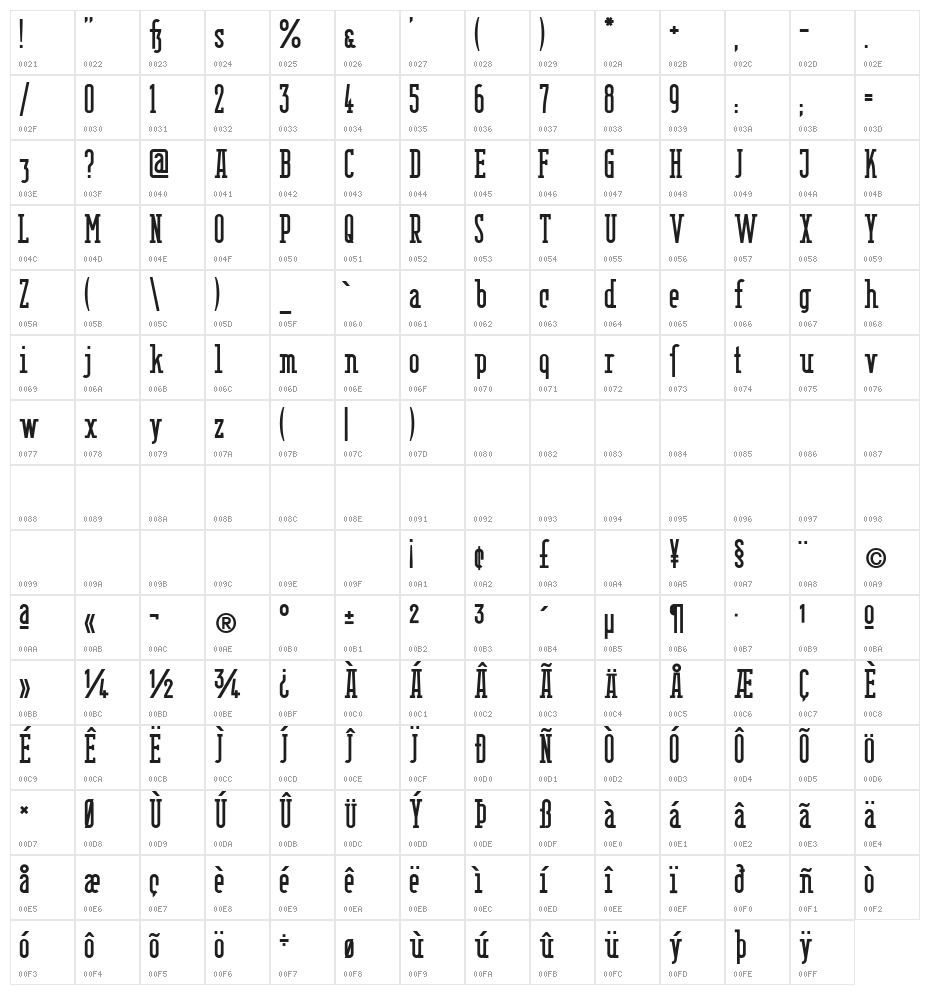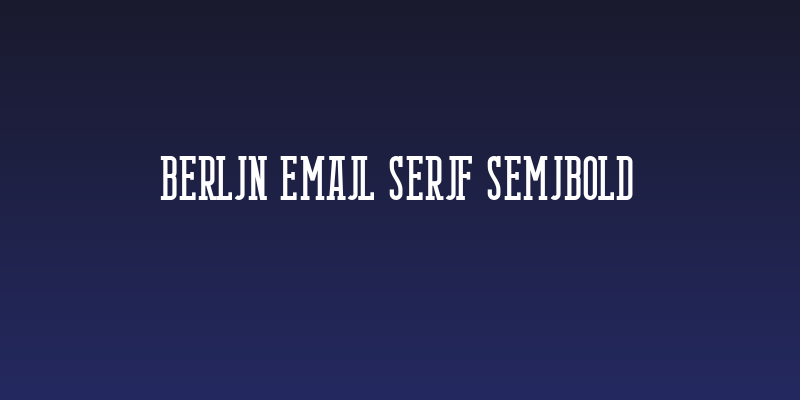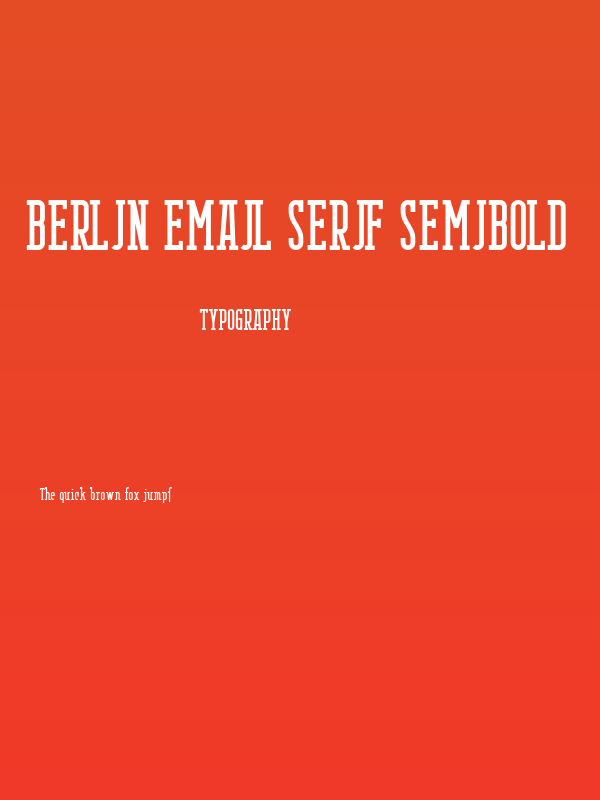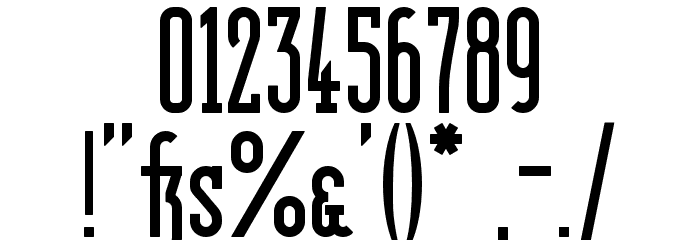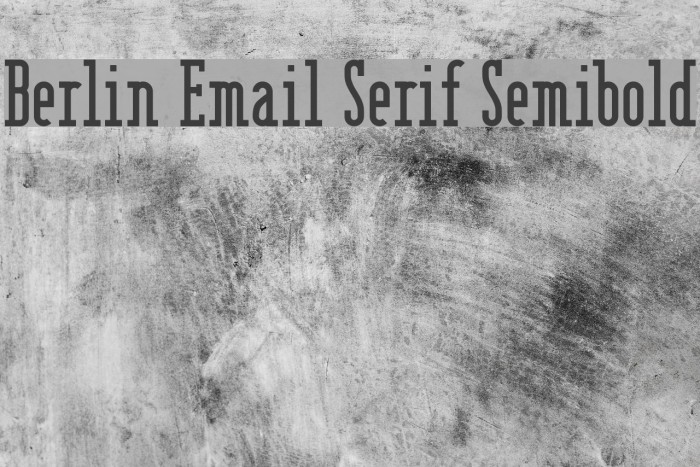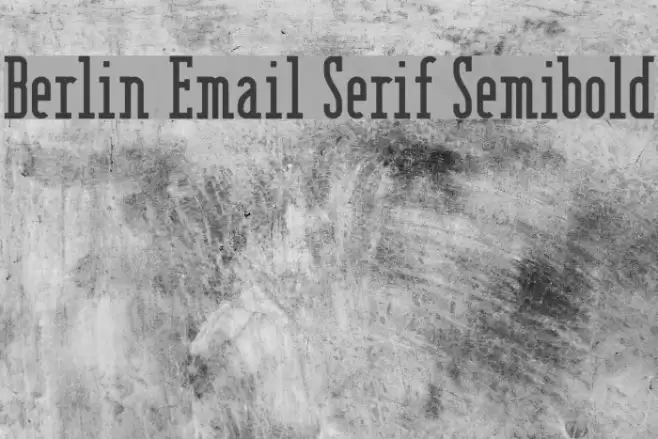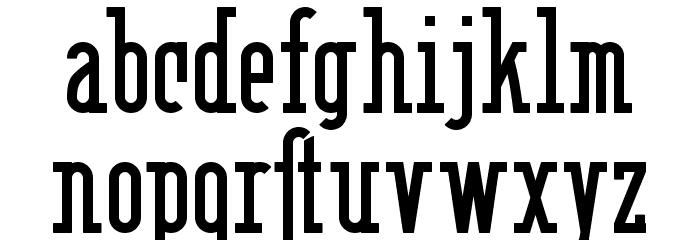
Berlin Email Serif Semibold Font
Berlin Email Serif Semibold Description
This font features a bold and striking serif style with a strong presence. The uppercase letters are tall and commanding, with pronounced serifs that give them a classic yet modern feel. The lowercase letters maintain a consistent style, offering a harmonious balance with the uppercase. Numbers are clear and distinct, making them easily readable. Special characters are well-integrated, maintaining the overall aesthetic. The font's semi-bold weight adds to its versatility, making it suitable for various design applications.
| Overall Style | Classic |
| Proposed Projects | Ideal for headlines, posters, branding, and editorial design where a strong, classic presence is desired. |